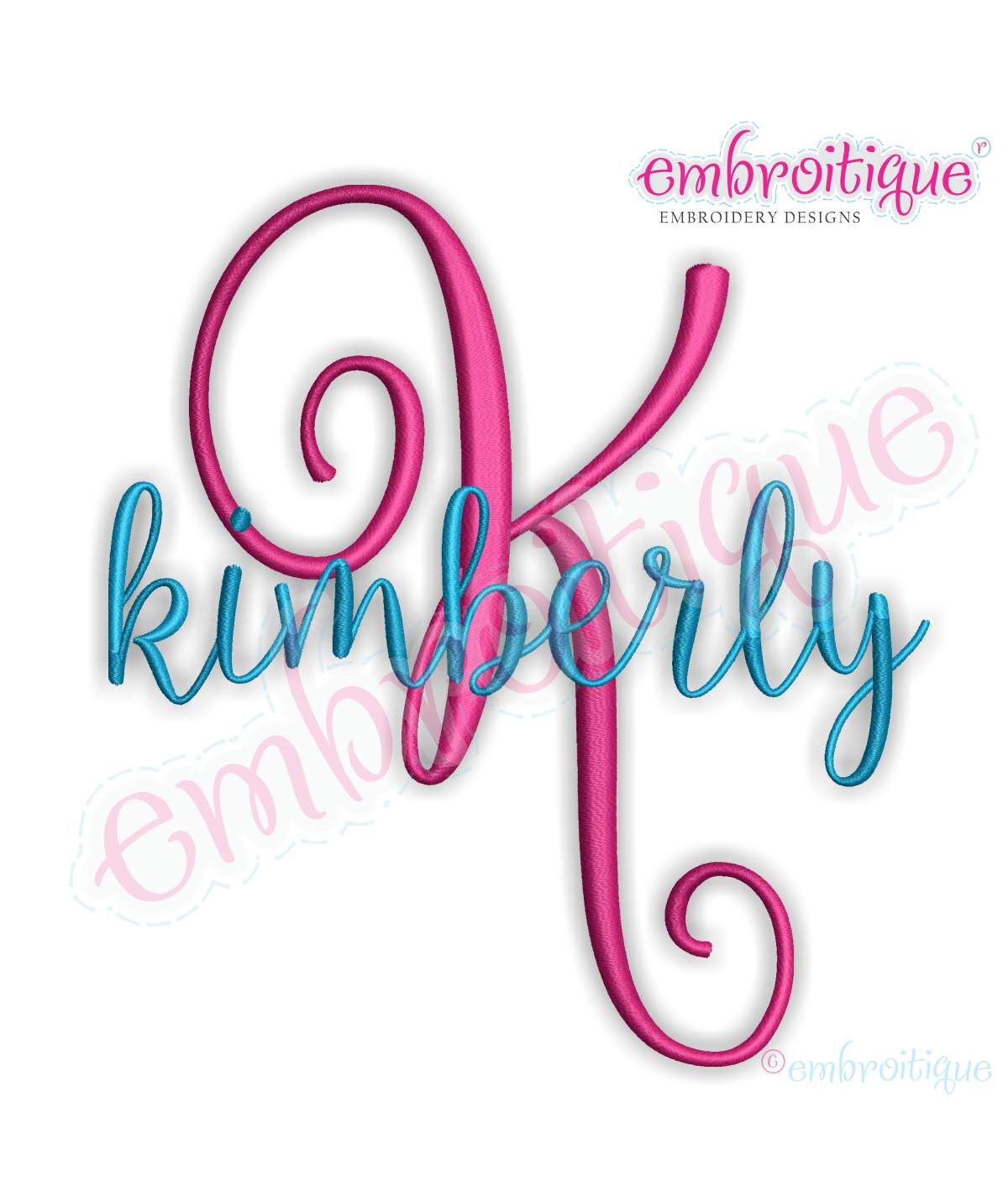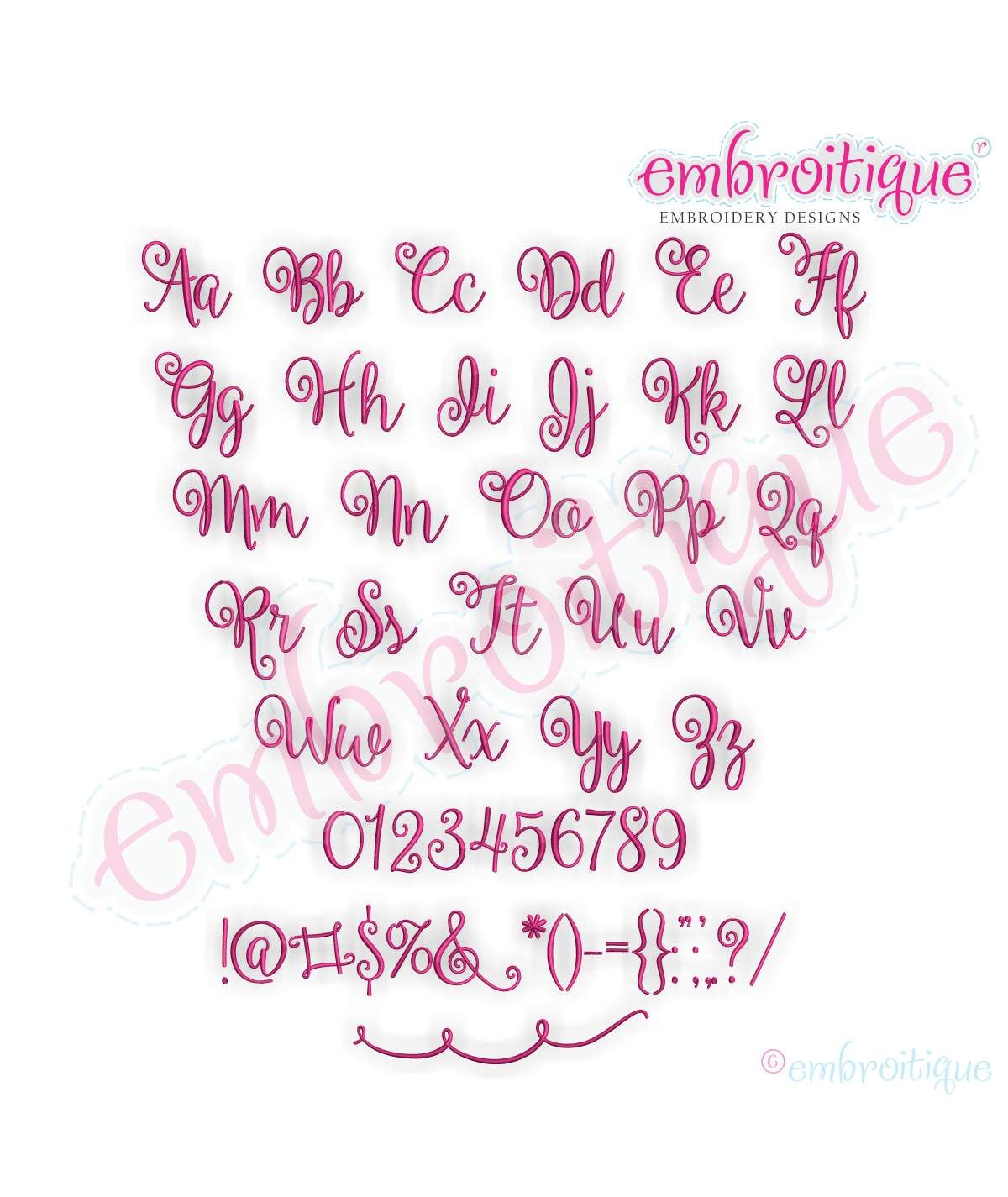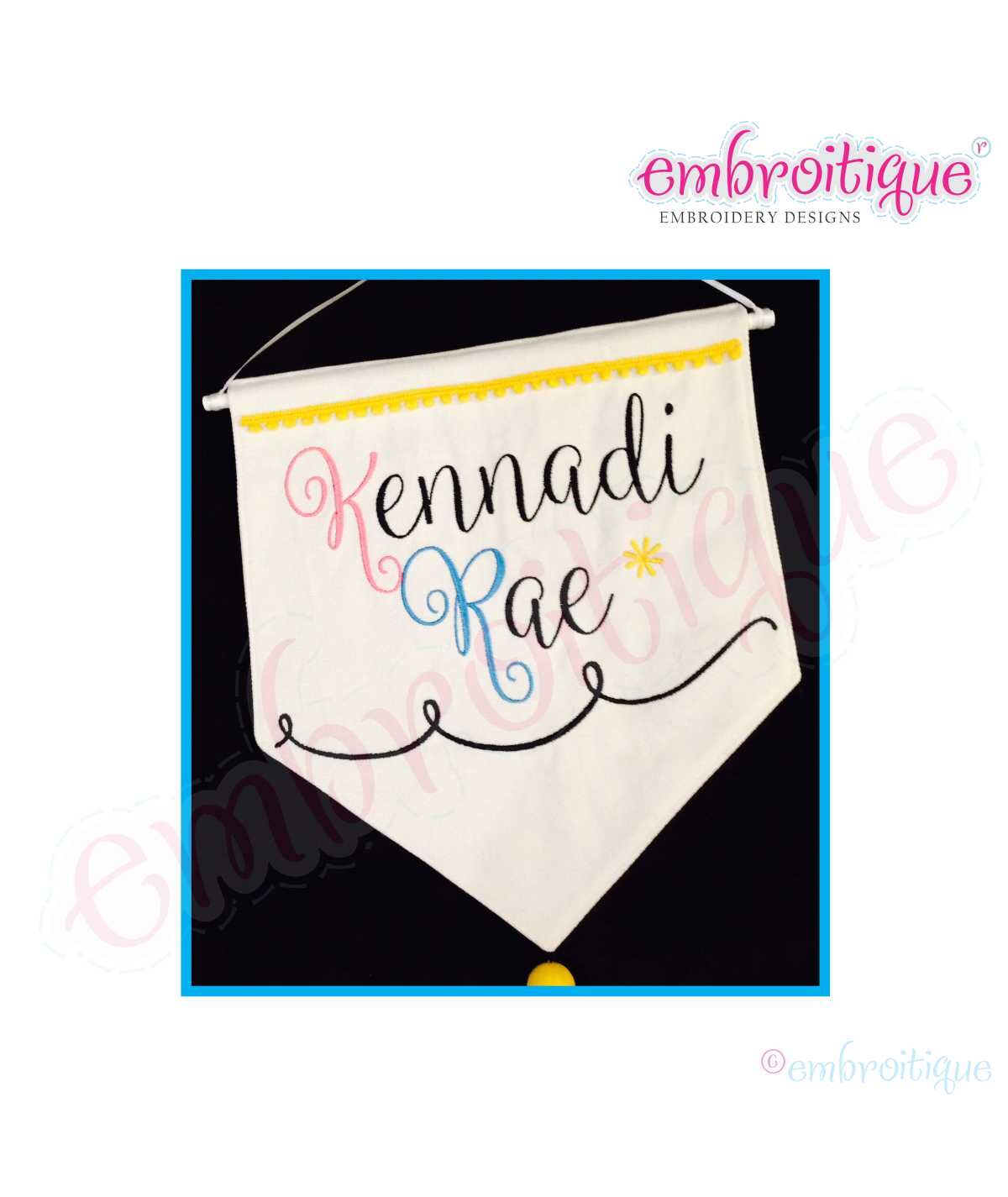
Kimberly 1 Calligraphy Monogram Set - Small
A beautiful hand lettered upright calligraphy alphabet.  Classy and whimsical, this will definatley become one of your favorite sets for all types of projects.  Be sure to check out the Kimberly Alternates set for an additional set of capital letters sold separatley here. Aa-ZZ, 0-9, and all punctuation included.